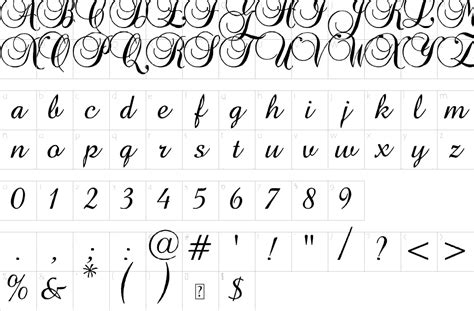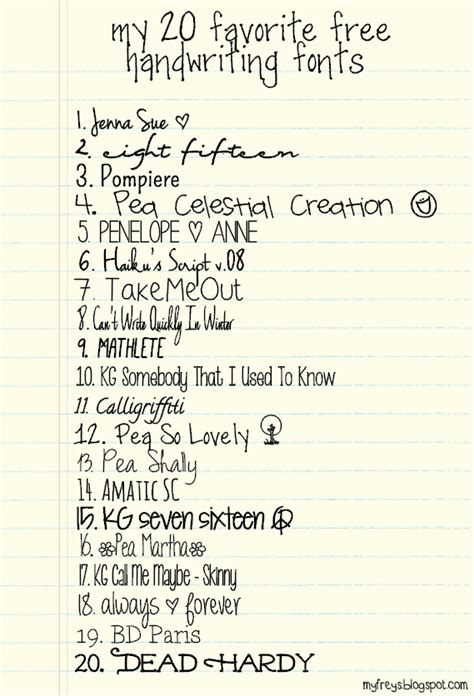
Free Handwriting Fonts 2020 - 100 Greatest Free Fonts for 2020 | Free font, Free script ... : As of december 17, 2020 yes!. Handwriting fonts are especially popular thanks to the lettering trend in web design, because the hand lettering effect can be achieved by using decorative these are our pick for the best free handwriting fonts that you can use in 2020 to enhance your content. Demo donationware free free for personal use public domain, gpl, ofl shareware. The best collection of free handwriting fonts on the internet!! Windows, mac, linux ✓ browse by popularity or by upload date. Download and install free handwritten fonts of the best quality from free fonts and use on your own personal and business related design purposes.
Cursive · script · feminine · masculine · formal · informal · messy · neat · scribbled · brushed · graffiti · … theme. The best collection of free handwriting fonts on the internet!! Unicode fonts for ancient scripts. Handwriting fonts are written with a pen, pencil, or marker. Whether you call 'em calligraphy fonts, handwriting fonts, or cursive fonts, we're talking about beautiful scripts that add an air of now that you've had a look at some of our favorite fonts for 2020, how are you going to use or pair them?
In this list, i've collated some of the best handwriting. Writing fonts include both printing and cursive styles and is less artistic than formal calligraphy. Welcome to the fonts for peas section of kevin & amanda! The best collection of free handwriting fonts on the internet!! Craft a personalized note with one of these amazing handwritten fonts below.
The best handwriting fonts come in a variety of executions and with varied styles. How to improve your handwriting. The best free calligraphy fonts. The best collection of free handwriting fonts on the internet!! Today it is coming for free from the work of nasser araujo.
For a more vintage/classic or elegant look, check out the elegant script fonts and for a modern look, check out the modern script fonts.
Next in our lineup of the best handwriting fonts is geulis, a beautifully elegant handwritten script with a distinct and timeless style that contains a full suite of upper and lowercase latin characters, as well as numbers, punctuation marks, symbols, and multilingual. Whether you call 'em calligraphy fonts, handwriting fonts, or cursive fonts, we're talking about beautiful scripts that add an air of now that you've had a look at some of our favorite fonts for 2020, how are you going to use or pair them? Total in section 693 of the fonts available to free download. Download your favorite fonts and upload them to visme for use in all of your designs. Font name newest most downloads. Each of these fonts is available for free download but the. Cursive · script · feminine · masculine · formal · informal · messy · neat · scribbled · brushed · graffiti · … theme. How to improve your handwriting. A great collection for new year 2020, 100 greatest free fonts gift for you. #handwritten #cartoon #cursive #eroded #decorative #handwriting #elegant #halloween #logo #hand drawn #retro upload your fonts to cufonfonts.com and archive them for use by all users around the world. Licence included with all fonts ✓. Craft a personalized note with one of these amazing handwritten fonts below. Download font, font, free font, handwriting font, handwritten, ludicrous free.